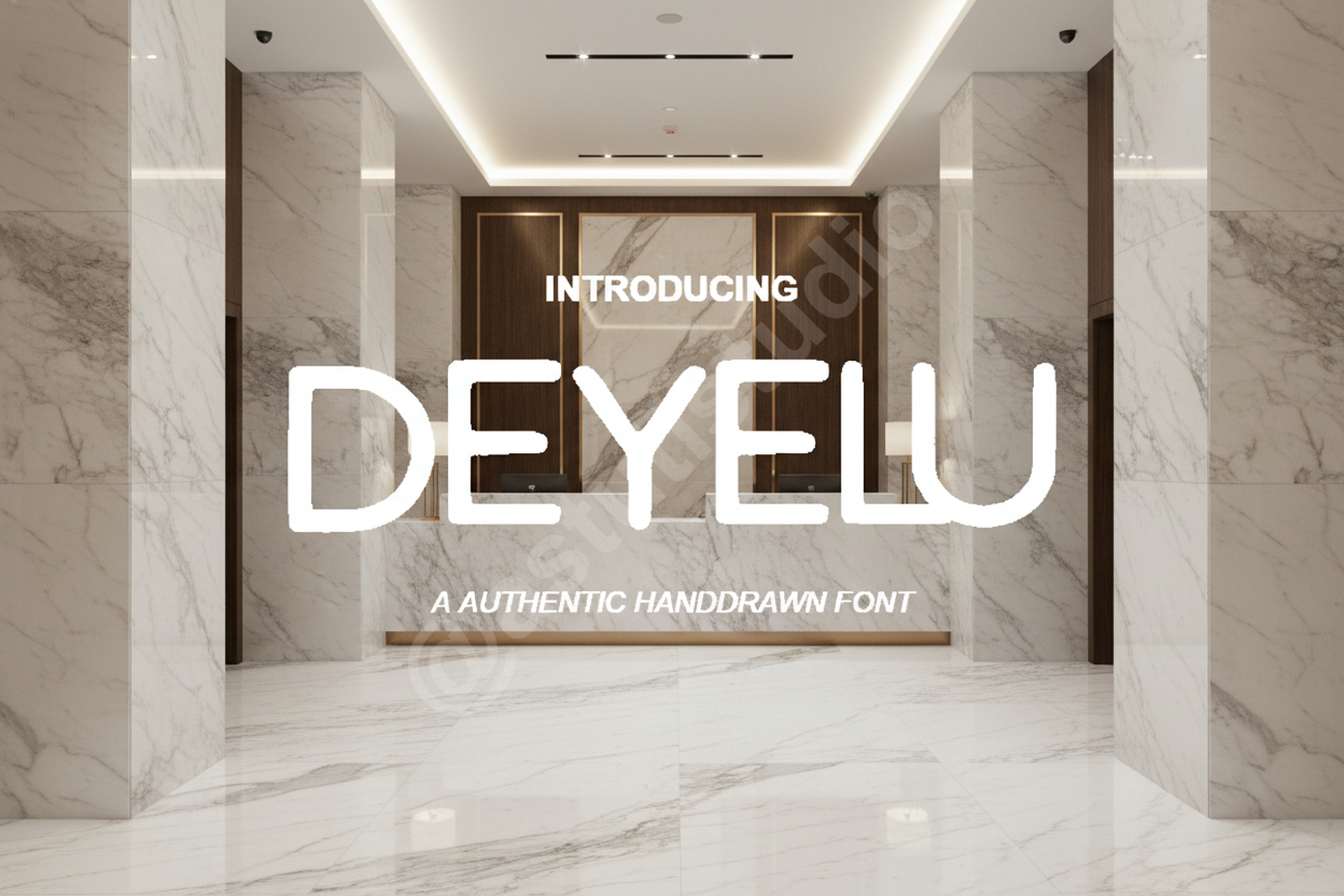
Deyelu - Elegant Modern Serif Typeface
Deyelu
Deyelu is a premium serif font that embodies elegance and modern sophistication. Crafted with meticulous attention to detail, this typeface offers a perfect balance between classic proportions and contemporary flair. Whether you are working on high-end branding or minimalist editorial designs, Deyelu provides a polished look that stands out.
- Full set of uppercase and lowercase letters
- Numerals and punctuation
- Multilingual support for global accessibility
- Luxury Branding and Identity
- Sophisticated Wedding Stationery
- High-end Editorial and Magazine Layouts
- Professional Logo Design
- Social Media Graphics and Premium Print Media